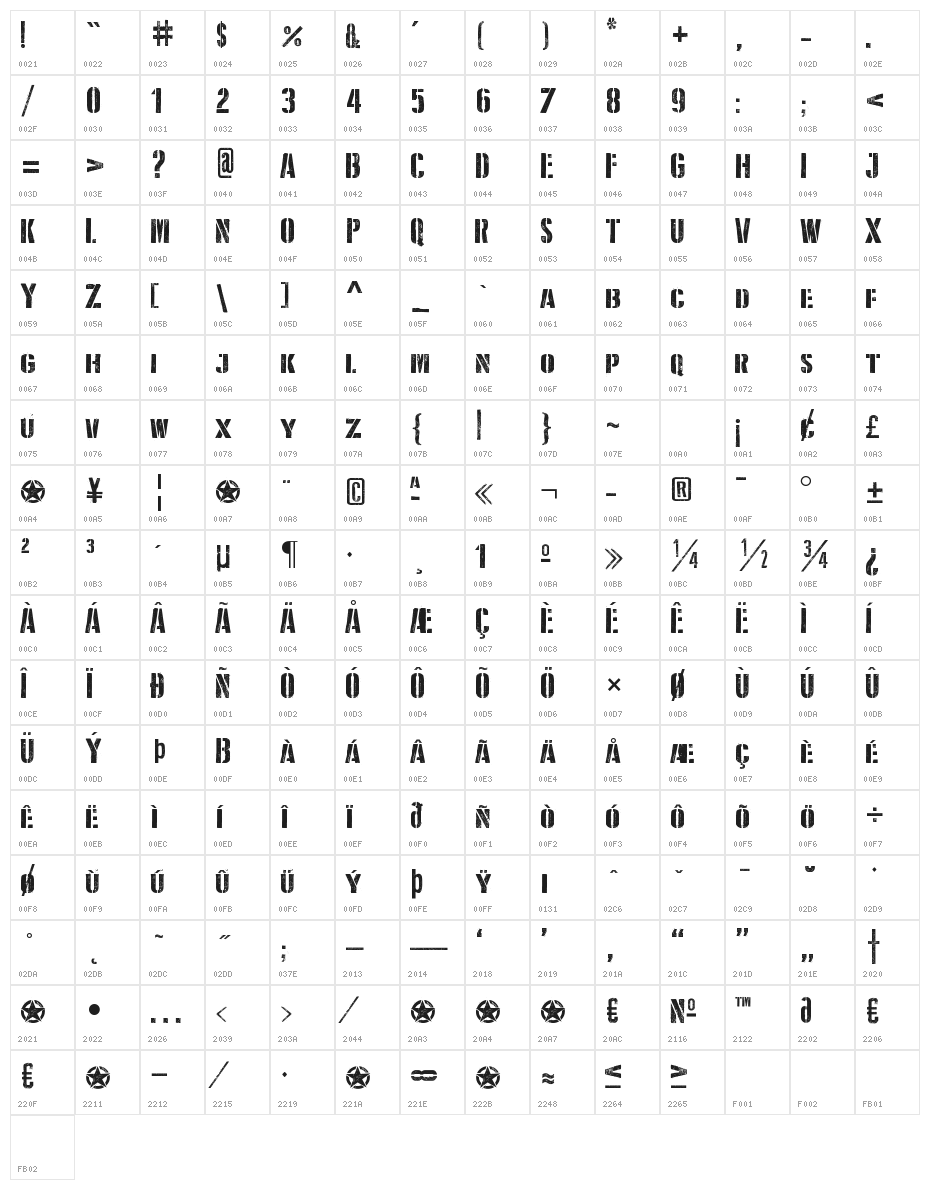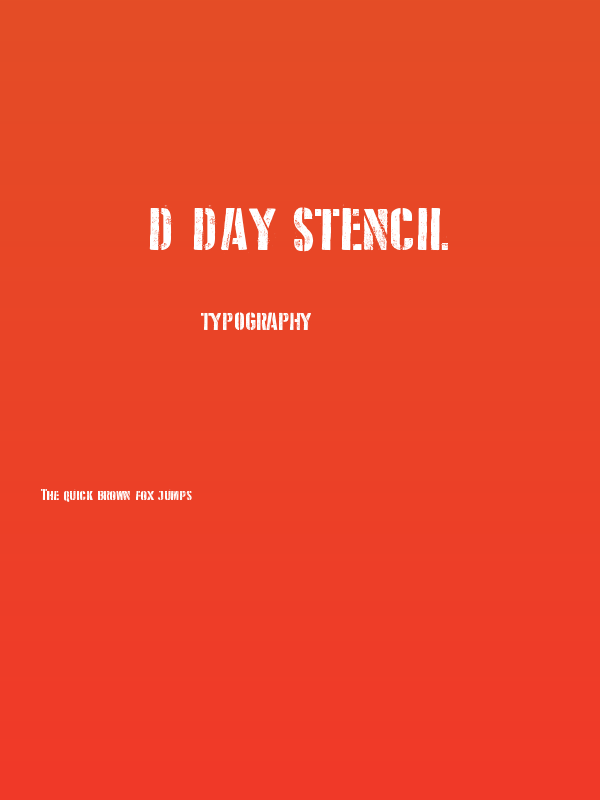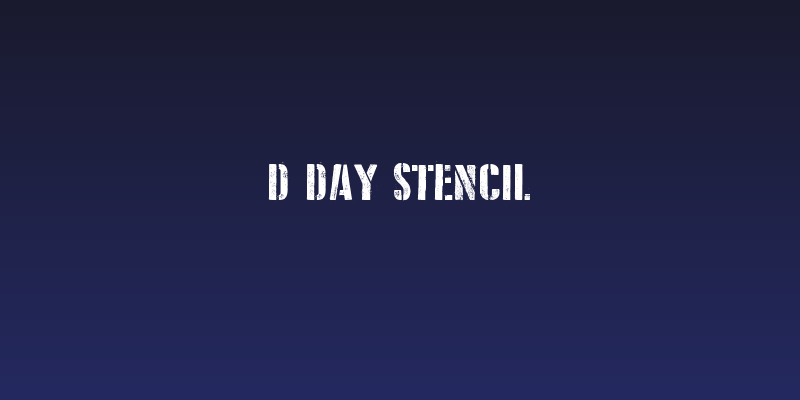
D Day Stencil Font
| Kategorien | Stencil |
| Gesamtstil | Vintage |
| Anwendungsfall | Logos, Headlines, Posters |
| Vorgeschlagene Projekte | Ideal for military-themed designs, posters, apparel, logos, and signage that require a strong, impactful presence. |